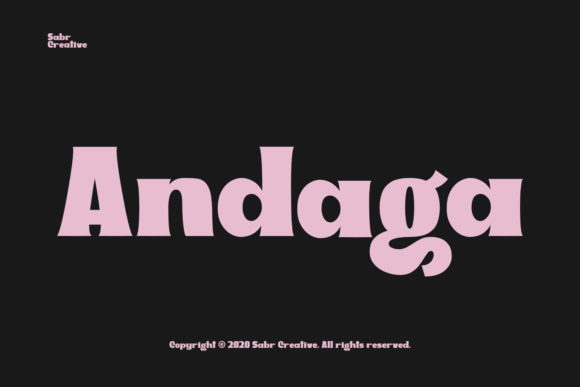
The Andaga Font: A Bold and Modern Serif for Creative Projects
I still remember the frustration of working on a branding project for a fashion client, searching for the perfect font to convey a sense of luxury and sophistication. The font had to be bold, yet elegant; modern, yet timeless. After hours of scouring font libraries and testing various options, I stumbled upon Andaga – a bold and modern serif font that instantly caught my attention. In this article, I’ll share my experience with Andaga, its features, and how to make the most of this versatile font.
An Honest Review of Andaga
Andaga has quickly become one of my go-to fonts for creative projects. Here’s what I love about it:
- ✨ Strong, high contrast character: Andaga’s bold strokes and elegant lines make it perfect for headlines, titles, and emphasis text.
- ✅ Versatility: This font works beautifully as both a text and display font, making it suitable for a wide range of applications, from branding and advertising to packaging and web design.
- ✅ Modern and timeless: Andaga’s clean lines and classic serif design ensure it remains modern and relevant, even as design trends evolve.
While Andaga is an excellent font, it’s not without its quirks:
- 🤔 Limited italic support: Andaga’s italic styles are not as comprehensive as some other fonts, which may limit its use in certain projects.
- ⚠️ Occasional kerning issues: As with any font, some users may experience kerning issues, particularly when using Andaga at smaller sizes or in combination with other fonts.
The Story Behind Andaga
Andaga was designed by a team of typographers who sought to create a bold, modern serif font that would meet the needs of contemporary designers. Inspired by classic serif fonts, they aimed to craft a font that was both elegant and versatile. The result is Andaga, a font that has quickly become a favorite among designers and creative professionals.
| Font Name | Andaga Font |
| Author | sabrcreative |
| What is Andaga’s primary use case? | Andaga is a versatile font suitable for a wide range of applications, including branding, advertising, packaging, headlines, magazines, websites, and logo design. |
| Is Andaga suitable for body text? | While Andaga can be used for body text, its bold character makes it more suitable for headlines, titles, and emphasis text. |
| Does Andaga support OpenType features? | Yes, Andaga supports OpenType features, including Stylistic Alternates and Glyphs, which can be accessed in compatible design software. |